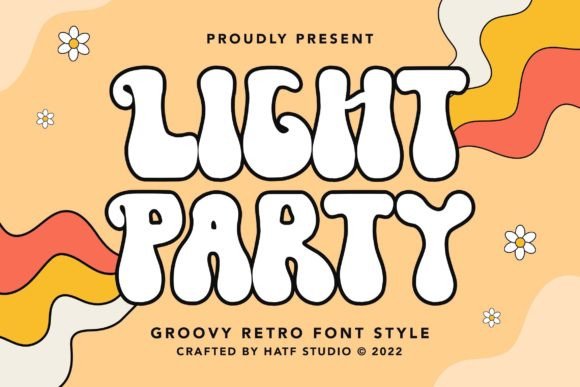
Looking for a unique and eye-catching font to elevate your branding, wedding designs, or social media posts? Look no further than Light Party Font, created by Hatf Type.
This groovy retro font features distinctive handwritten characters that will give your projects a personalized touch. Whether you're designing logos, product packaging, labels, or invitations, Light Party Font is the perfect choice for any project that needs a handwritten feel.
The possibilities are endless with Light Party Font. Use it to add a whimsical touch to your next photography project or to make your product designs stand out. The font's unique style will capture the attention of anyone who sees it.